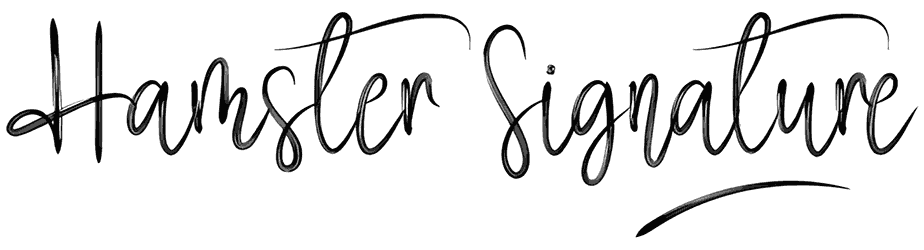
Hamster Signature Font
Do you want a flowing font that is both elegant and playful? Take a look at the Hamster Signature font! This lovely signature font includes handmade letters that provide a personal touch to any project.
Whether you’re making invitations, branding materials, or simply searching for a unique way to add personality to your digital designs, Hamster Signature is an excellent solution. Get it from RB’s font library right now for free, and use it to create something great!